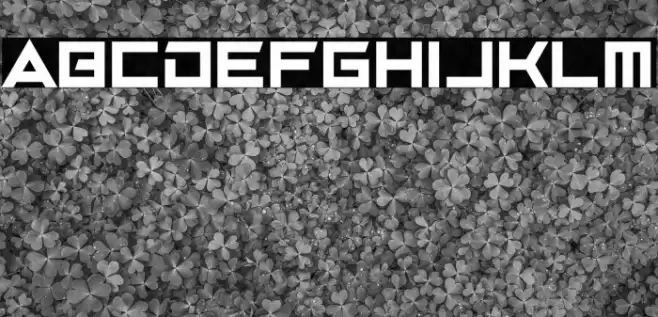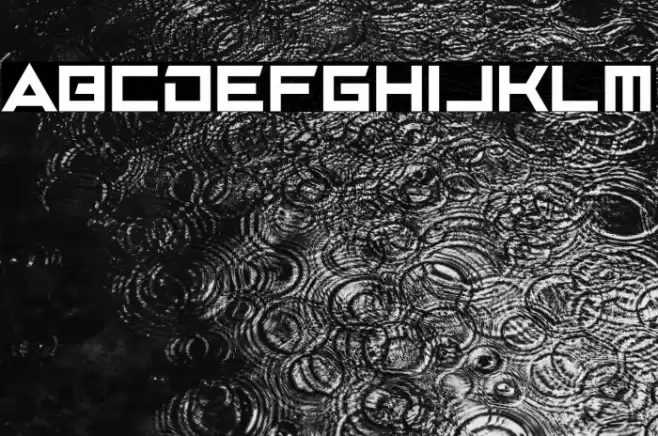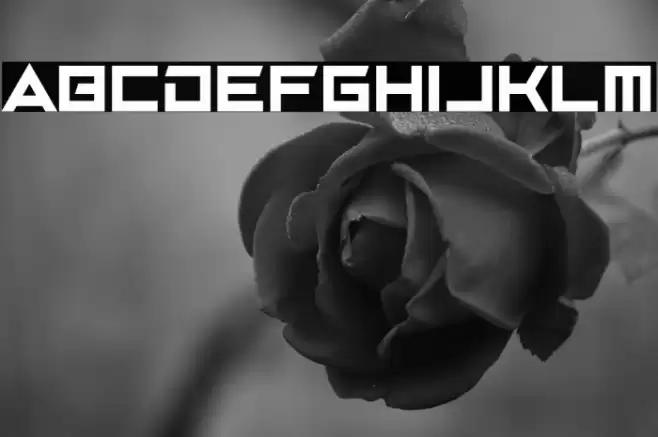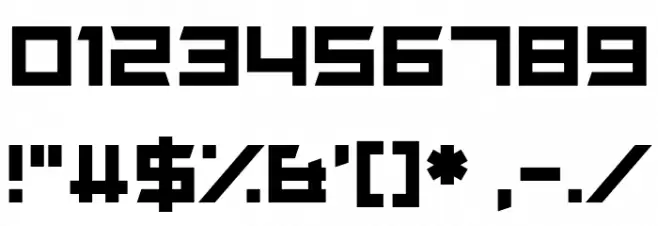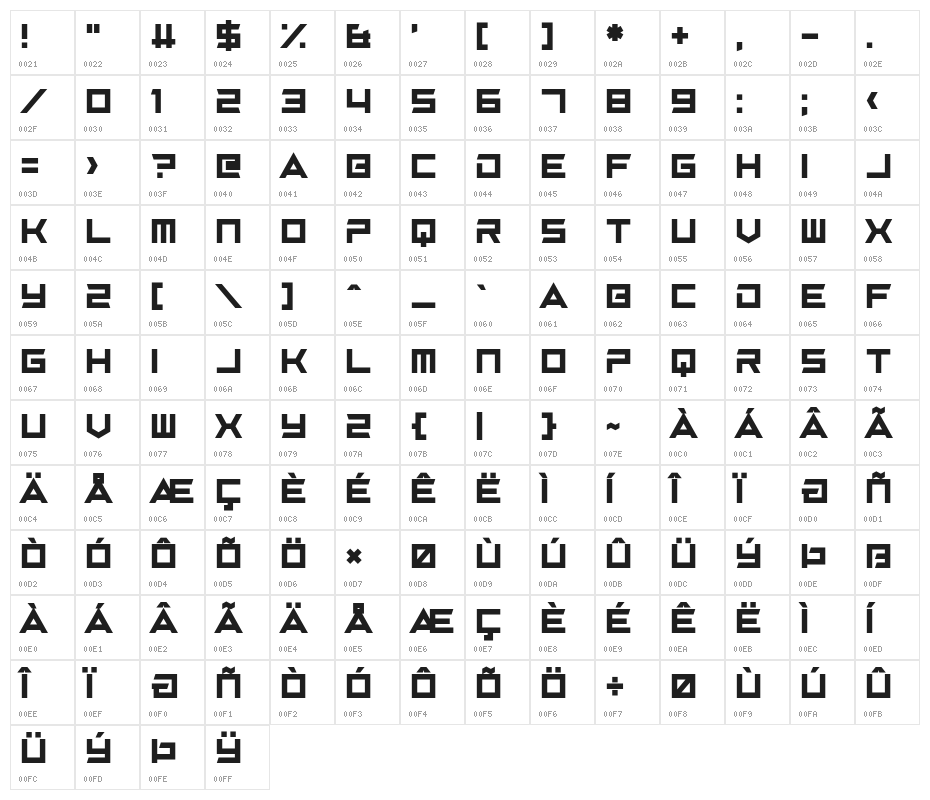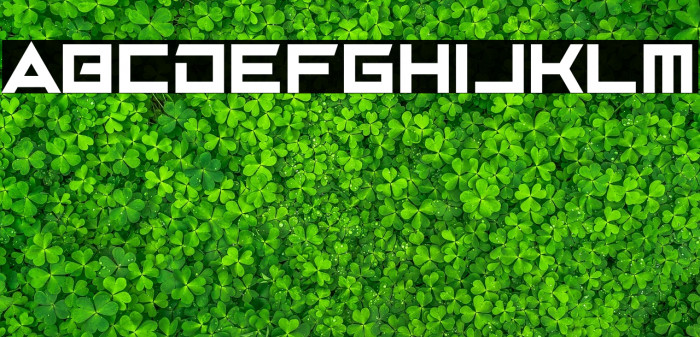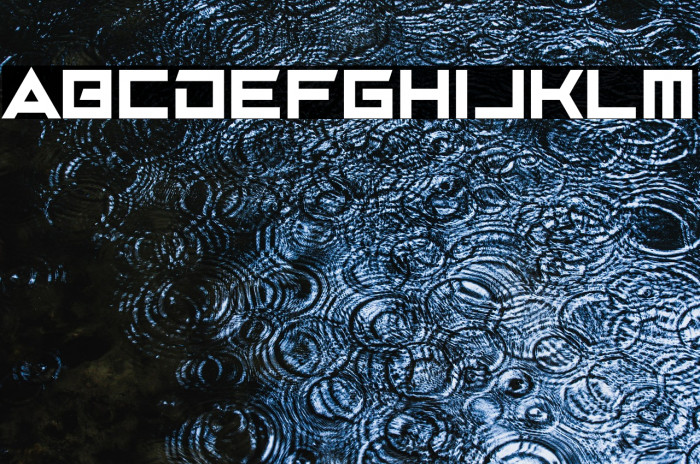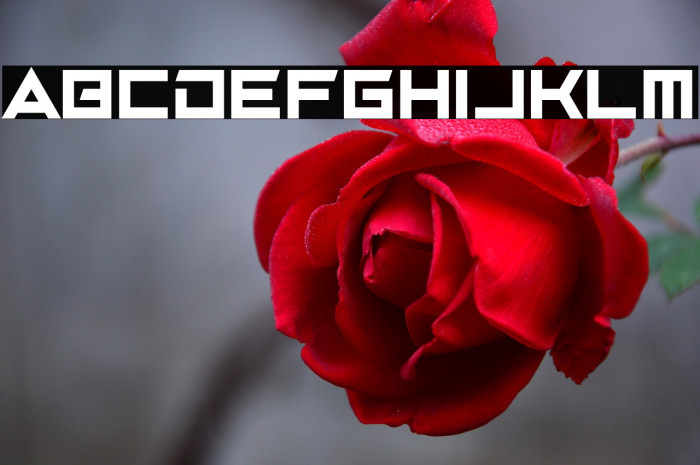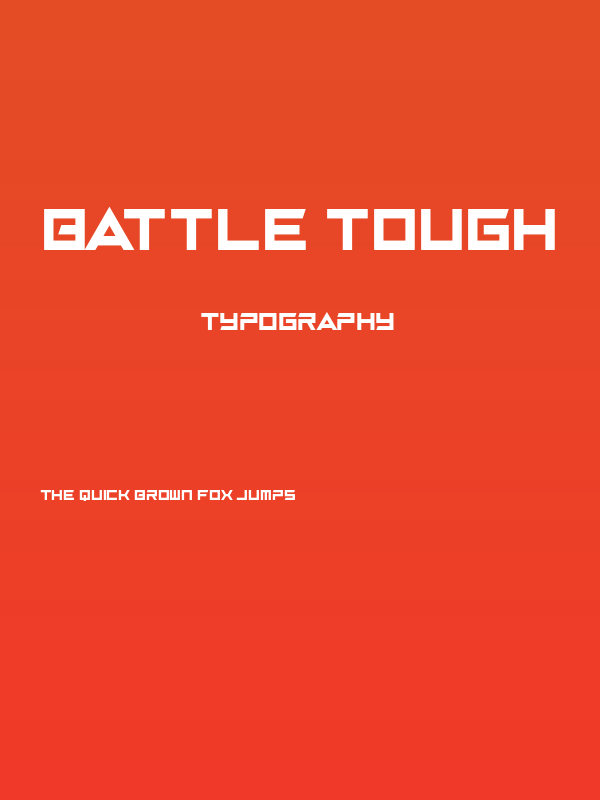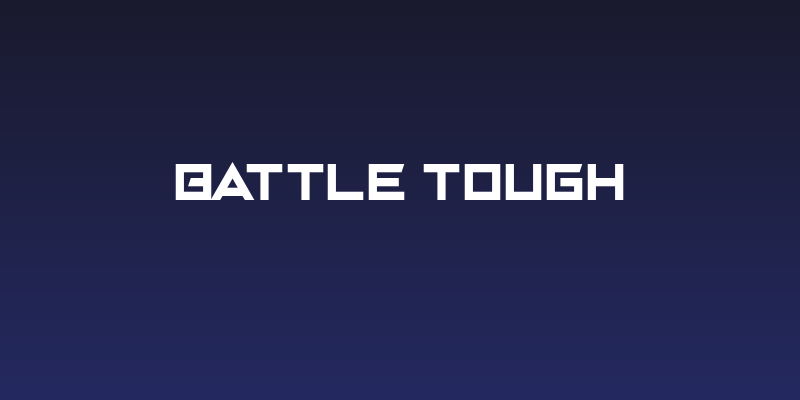
Battle Tough Font
Battle Tough Description
This font features a bold, geometric design with a futuristic and industrial feel. The characters are constructed with sharp angles and straight lines, giving them a robust and sturdy appearance. The uppercase letters are uniform in height, while the lowercase letters maintain a consistent style, enhancing readability. The numerals and special characters follow the same angular design, ensuring a cohesive look across all glyphs. This font is ideal for projects that require a modern, tech-inspired aesthetic, such as video game titles, tech branding, or sci-fi themed designs.
A bold, geometric font with a futuristic and industrial design from Uncategorized fonts.
- Font: Battle Tough
- Proposed Projects: Ideal for video game titles, tech branding, sci-fi themed designs, and industrial-themed posters.
- Overall Style: Futuristic, Industrial